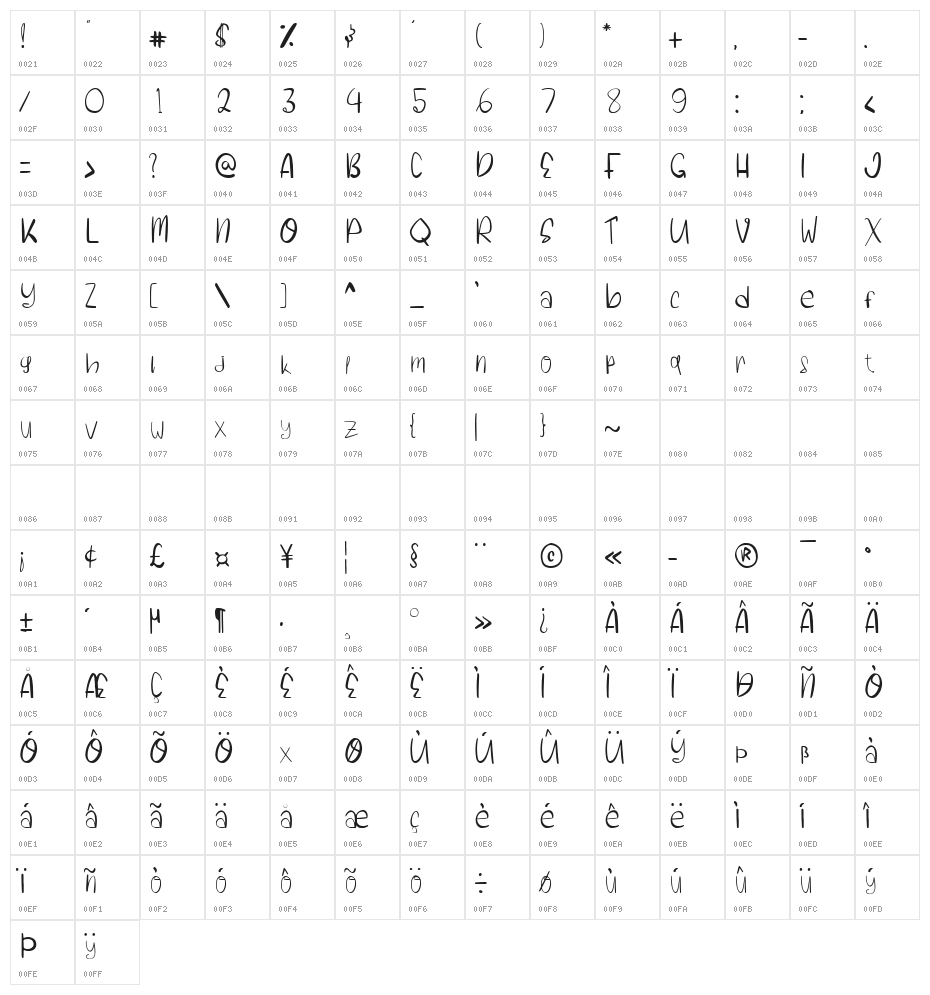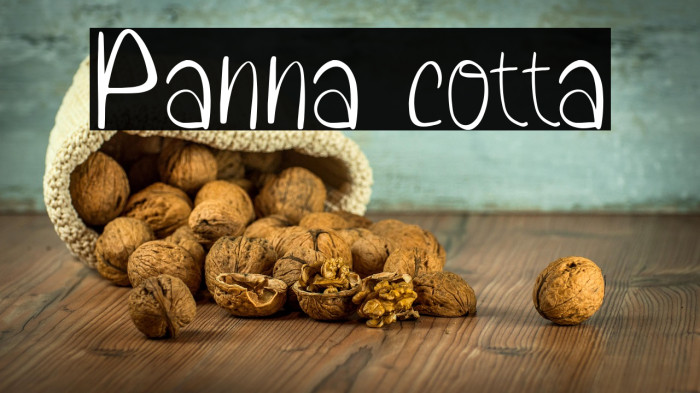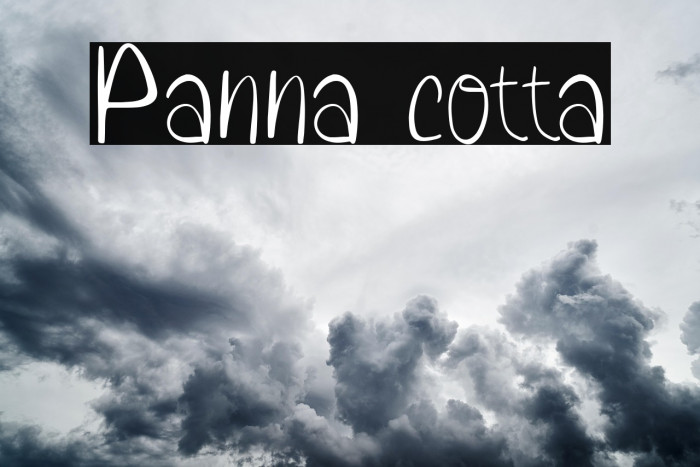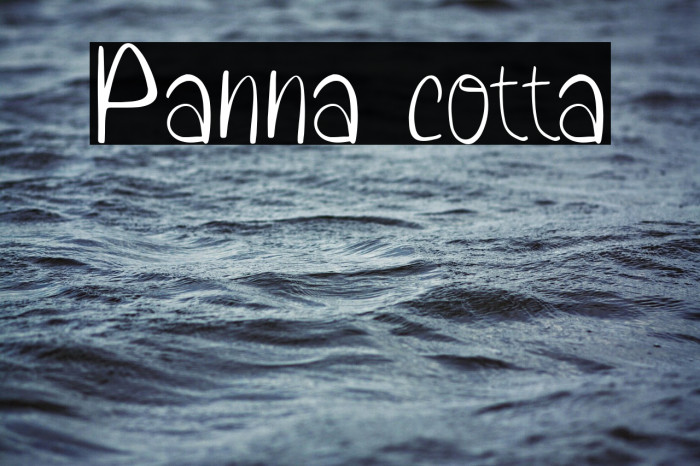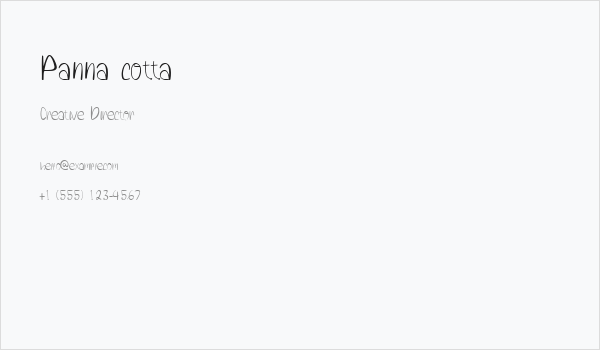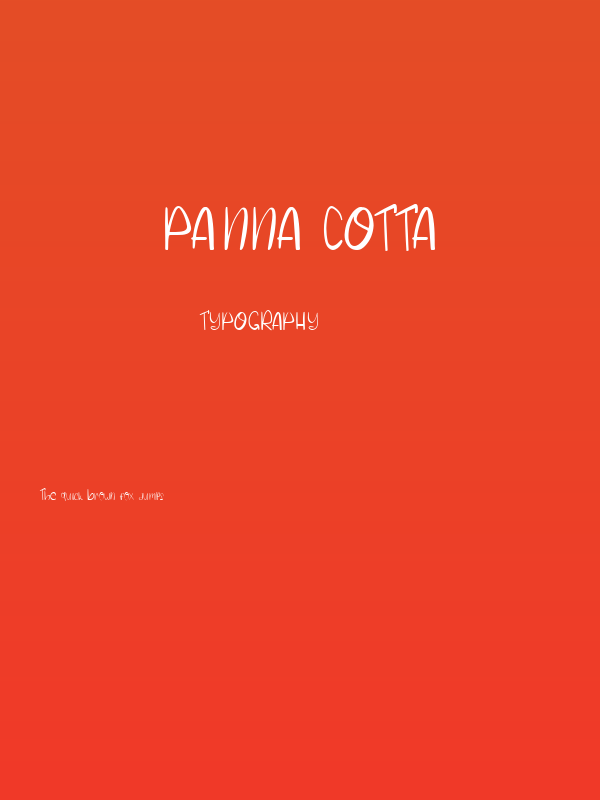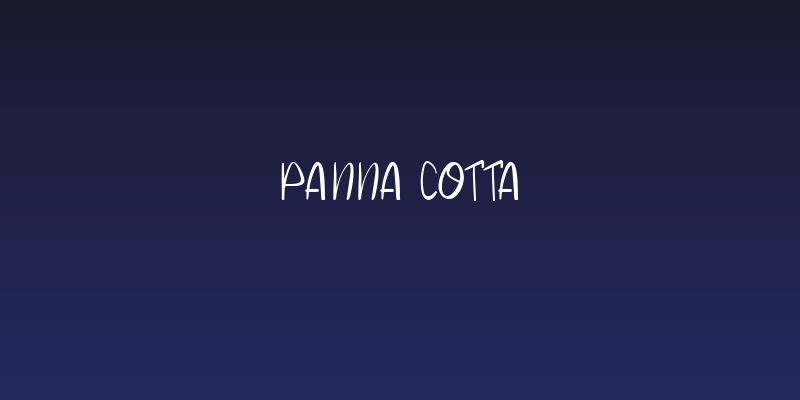
Panna cotta Font
Panna cotta Description
This font features a playful and whimsical design, characterized by its handwritten style with a casual and friendly appearance. The letters have a smooth, flowing quality, with some characters exhibiting a slight slant, adding to the informal feel. The strokes are moderately thick, providing a balanced contrast that enhances readability while maintaining a relaxed vibe. The font includes a full set of uppercase and lowercase letters, numerals, and a variety of special characters, making it versatile for various design needs. Its unique charm lies in the subtle variations in letter shapes, giving it a personalized and approachable look.
Overall StyleCasual
Use CaseGreeting cards, Children's books, Playful branding
Proposed ProjectsIdeal for greeting cards, children's books, playful branding, and social media graphics.